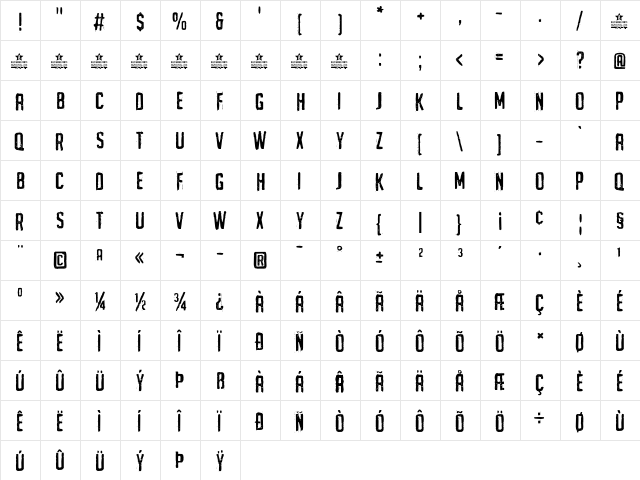
URGH TYPE PERSONAL USE Regular
| Foundry | BILLY ARGEL |
| Designer | BILLY ARGEL |
Design Context for URGH TYPE PERSONAL USE Typeface
URGH TYPE PERSONAL USE is a composed and adaptable typeface that performs quietly and consistently across a wide range of design contexts.